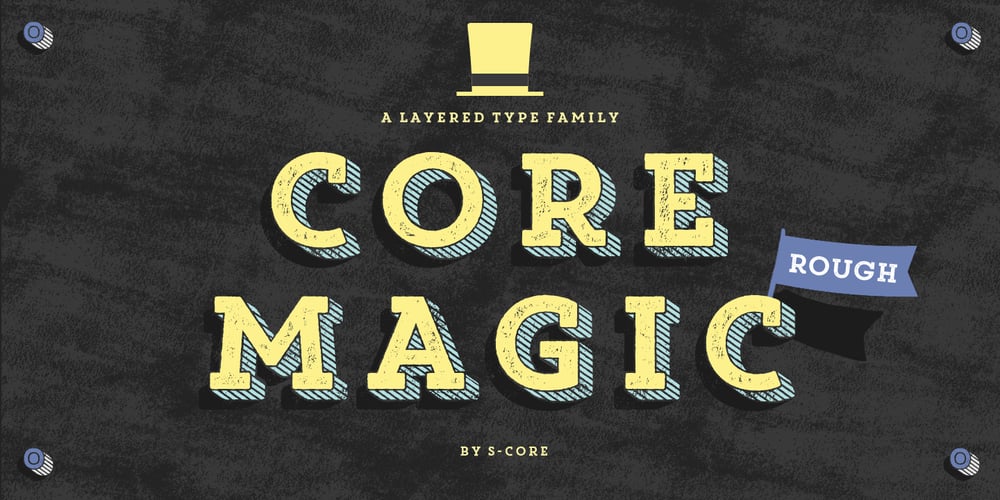
Core Magic Rough
Core Magic Rough font
Core Magic Rough Font Family was designed by Hyun-Seung Lee, Dae-Hoon Hahm, Dong-Kwan Kim and published by S-Core. Core Magic Rough contains 17 styles and family package options. Core Magic Rough is a textured version of Core Magic which is a layered type family consisting of seven 3D effect layers, eight 2D effect layers and one shadow effect layer. Uppercase and lowercase letters are separated by such features that counters are opened or closed. Core Magic provides other closed counter styles such as numbers with opentype feature (Stylistic Alternatives). Using Core Magic Rough with Core Circus Rough could make your works more charming and special with endless combinations (at least 262,551 kinds). This family is really nice for book titles, headlines, logotypes and any artworks.